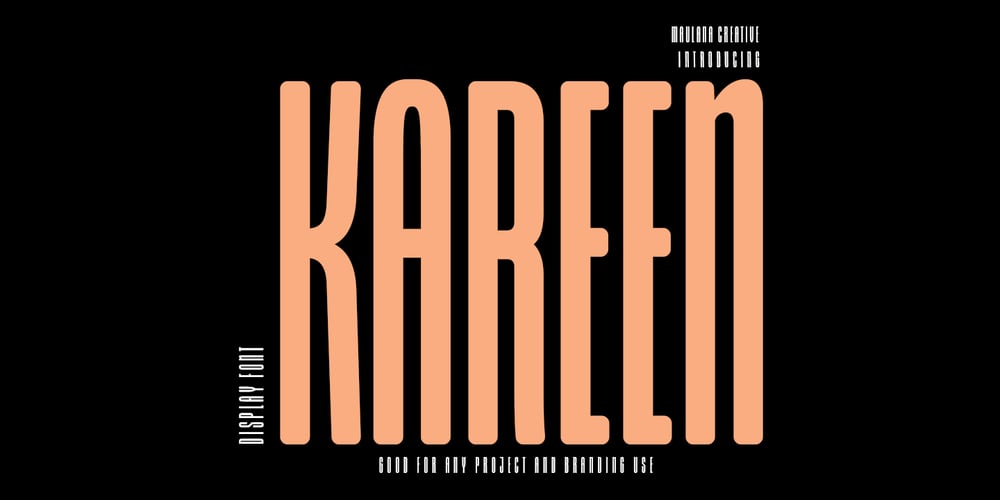
Kareen Font Family was designed by Gilang Maulana and published by Maulana Creative. Kareen contains 1 styles and family package options. Kareen is a soft rounded compressed display font. With high legibility structure letter form. To give you an extra creative work. Kareen font support multilingual more than 100+ language. This font is good for logo design, Social media, Movie Titles, Books Titles, a short text even a long text letter and good for your secondary text font with script or signature typeface. Make a stunning work with Kareen font. Cheers, Maulana Creative